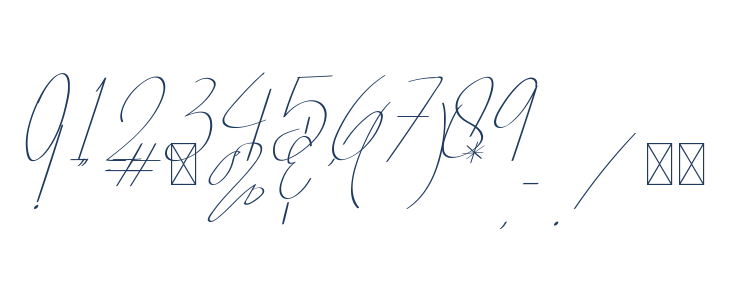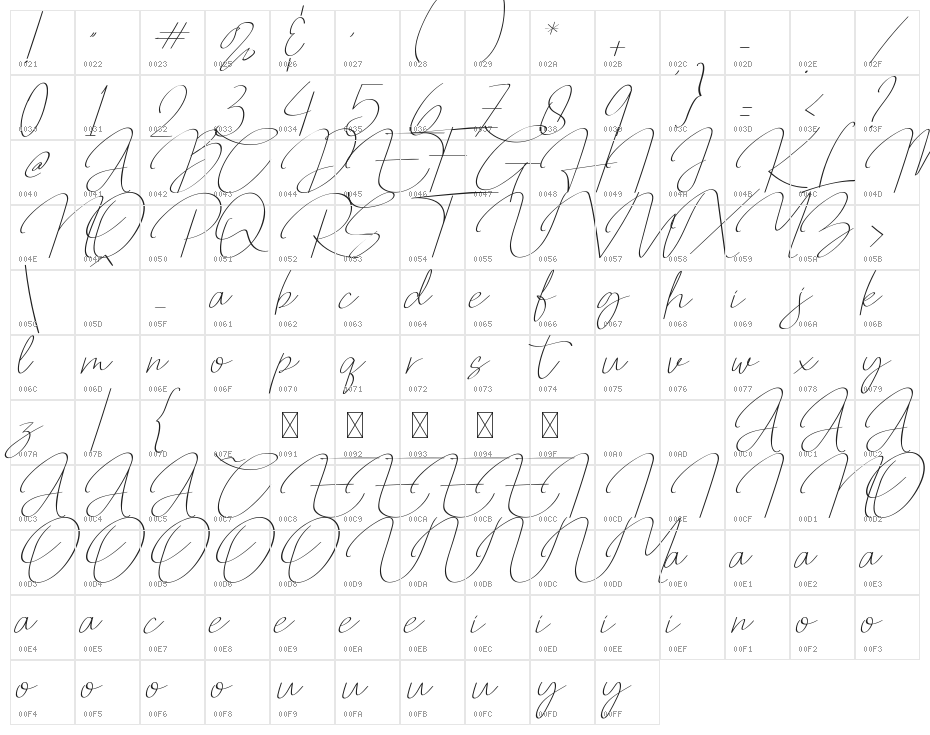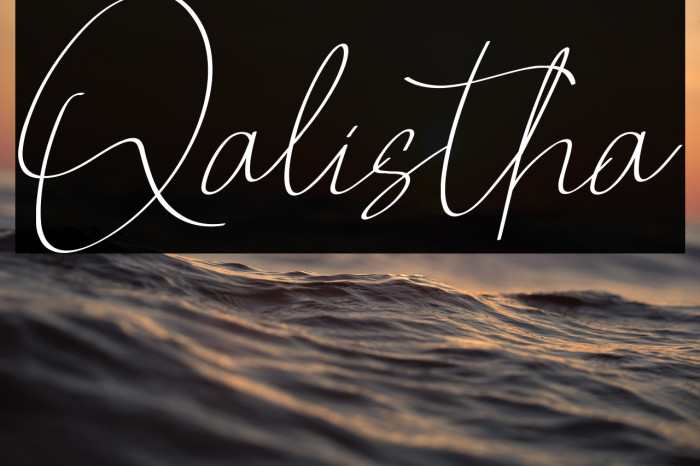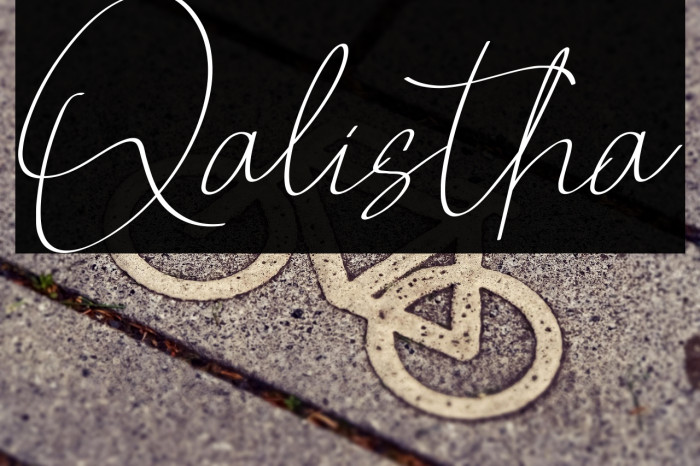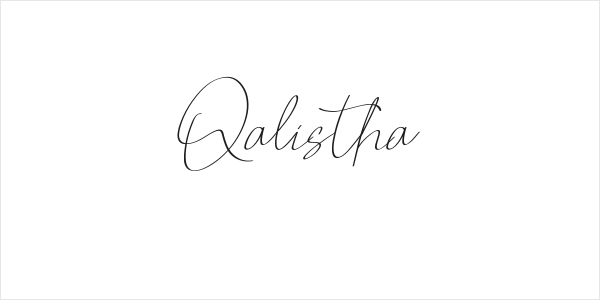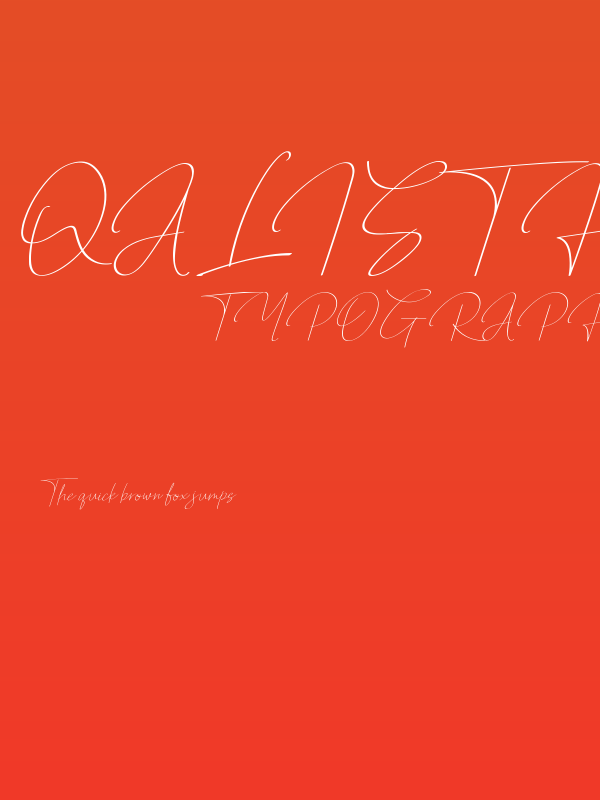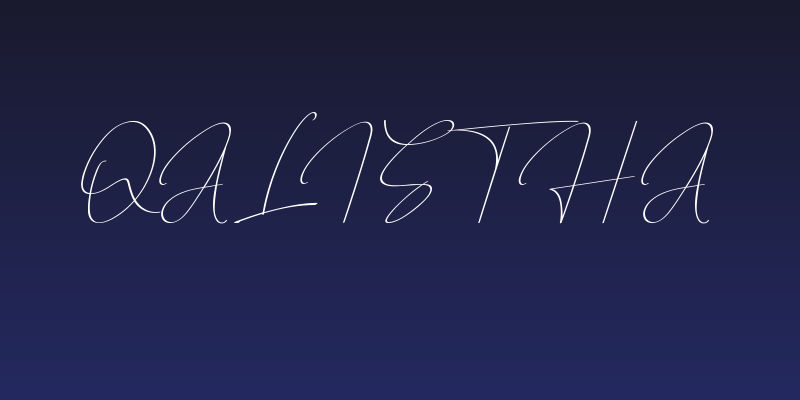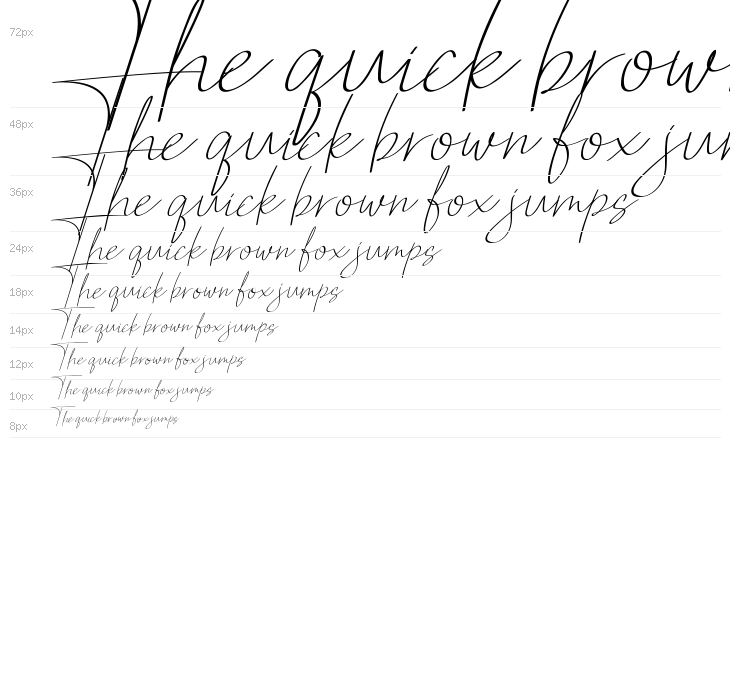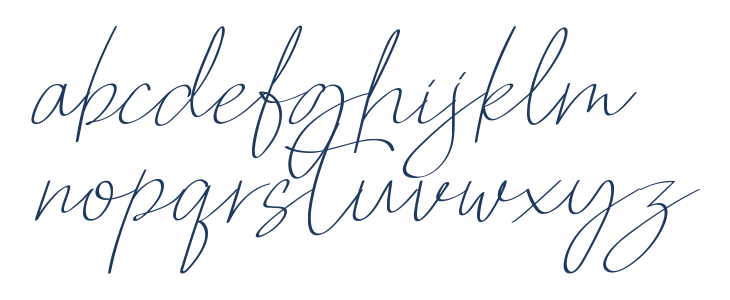
Qalistha Font
Qalistha Description
This elegant script font features a fluid, handwritten style with graceful curves and loops. The uppercase letters are slightly more restrained, maintaining a consistent height, while the lowercase letters exhibit a more dynamic and flowing appearance. The numerals are distinct and maintain the same flowing style, ensuring readability. Special characters are seamlessly integrated, matching the overall aesthetic. The font's delicate strokes and smooth transitions between characters give it a sophisticated and artistic feel, making it ideal for projects that require a personal touch.
| Proposed Projects | Ideal for wedding invitations, greeting cards, personal branding, and artistic projects that require a touch of elegance. |